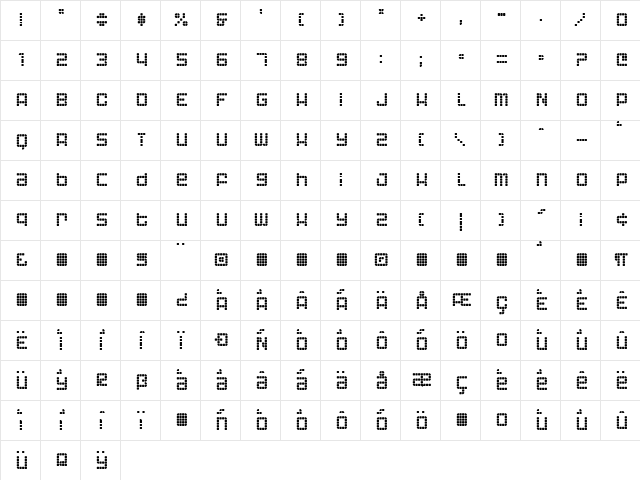
Astronaut II Regular
Design Context for Astronaut II
Astronaut II is a composed and adaptable typeface that performs quietly and consistently across a wide range of design contexts.